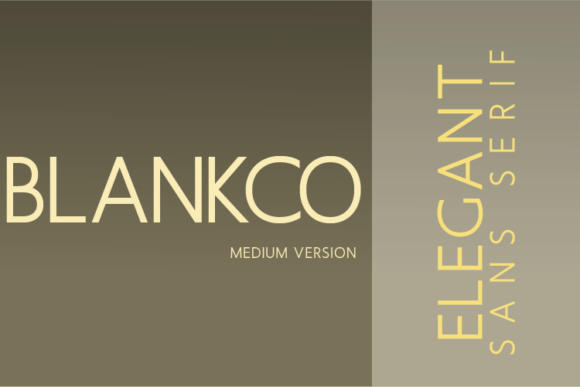
The Blankco Medium Font: A Fresh Take on Geometric Sans-Serif
Ah, the elusive perfect font. You know, that one typeface that makes your design project go from meh to mesmerizing. I recall a particularly frustrating design session where I was tasked with creating a bold, modern poster for a local art gallery. My usual go-to fonts just weren’t cutting it – they were either too ornate or too bland. That’s when I stumbled upon the Blankco Medium Font. **Game. Changer.**
First Impressions: A Love Affair with Blankco
Blankco is a fresh, geometric, sans-serif font that draws inspiration from iconic typefaces like Futura and Avant Garde. Its big x-height value, geometrical letterforms, sharp edges, and small stroke contrast make it reminiscent of the neo-grotesk fonts of the 20th Century. This typeface is **extremely versatile** and can be used in a variety of applications, including magazines, posters, branding, websites, and more!
What I Love About Blankco ✨
- ✅ Clean and modern aesthetic: Blankco’s geometric design makes it perfect for projects that require a sleek, contemporary look.
- ✅ High legibility: The font’s large x-height and clear letterforms ensure that your text is easy to read, even at small sizes.
- ✅ Versatile: Blankco can be used for both headings and body text, making it a great addition to any design project.
- ✅ OpenType features: The font includes a range of OpenType features, such as stylistic alternates and glyphs, which can add an extra layer of creativity to your designs.
- ⚠️ Limited italic options: While Blankco does include an italic version, it’s not as comprehensive as some other fonts on the market.
- ⚠️ Some characters may require manual kerning: As with any font, you may need to adjust the kerning of certain characters to achieve optimal results.
The Designer Inspiration Behind Blankco
Blankco was designed with the goal of creating a fresh, modern take on the geometric sans-serif genre. The designer’s inspiration came from iconic typefaces like Futura and Avant Garde, as well as the neo-grotesk fonts of the 20th Century. The result is a font that is both nostalgic and forward-thinking.
Q: What is the x-height value of Blankco?
A: Blankco has a relatively large x-height value, making it easy to read and versatile for a range of applications.
Q: Can I use Blankco for body text?
A: Yes, Blankco can be used for body text, although it’s particularly well-suited for headings and titles.
Q: Does Blankco include OpenType features?
A: Yes, Blankco includes a range of OpenType features, including stylistic alternates and glyphs.
Q: Is Blankco suitable for digital use?
A: Yes, Blankco is optimized for digital use and can be used on websites, social media, and other digital platforms.